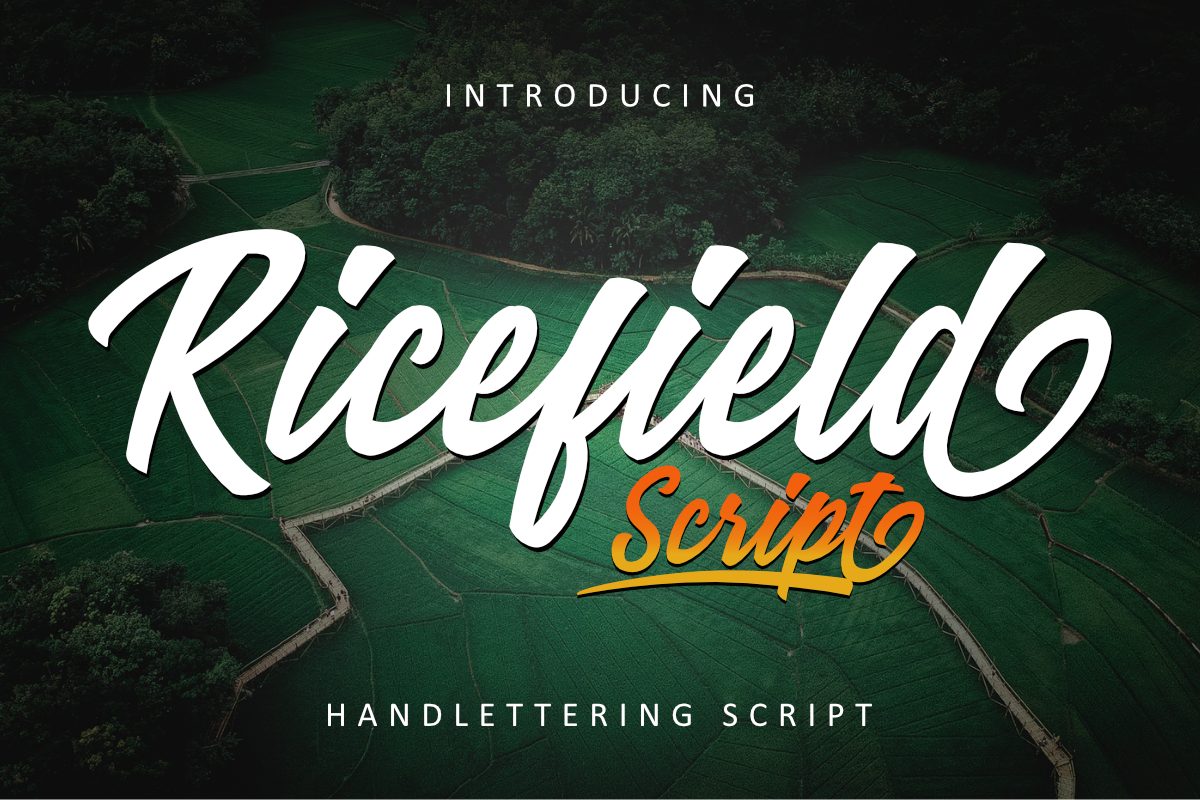
Ricefield Script
Ricefield
Ricefield is a modern handlettering script with strong style and dramatic movement. It's allowing you to create beautiful hand-made typography in an instant. Ricefield is to use for any kind of design such as branding projects, logo, wedding designs, social media posts, advertisements, product packaging, product designs, label, photography, watermark, invitation, stationery and any projects that need handlettering taste.